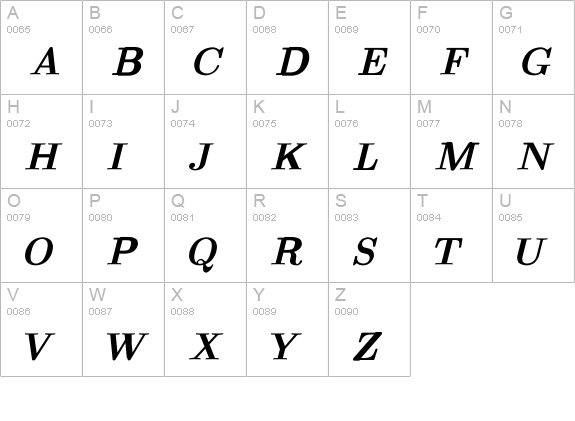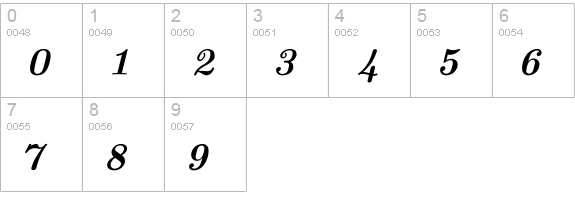
CM_Text BoldItalicExt Font Details
Introducing CM_Text BoldItalicExt font, a versatile and modern typeface that exudes elegance and sophistication. With its bold and italic design, this font is perfect for making a bold statement in your projects. Whether you are designing a poster, logo, or any other creative work, CM_Text BoldItalicExt font adds a touch of style and flair. What's even better is that CM_Text BoldItalicExt font is available for free download at FontsMarket.com. You can easily access this high-quality font and elevate your design projects without breaking the bank. Don't miss out on the opportunity to enhance your creations with the sleek and professional look of CM_Text BoldItalicExt font. Download it now and let your creativity shine!